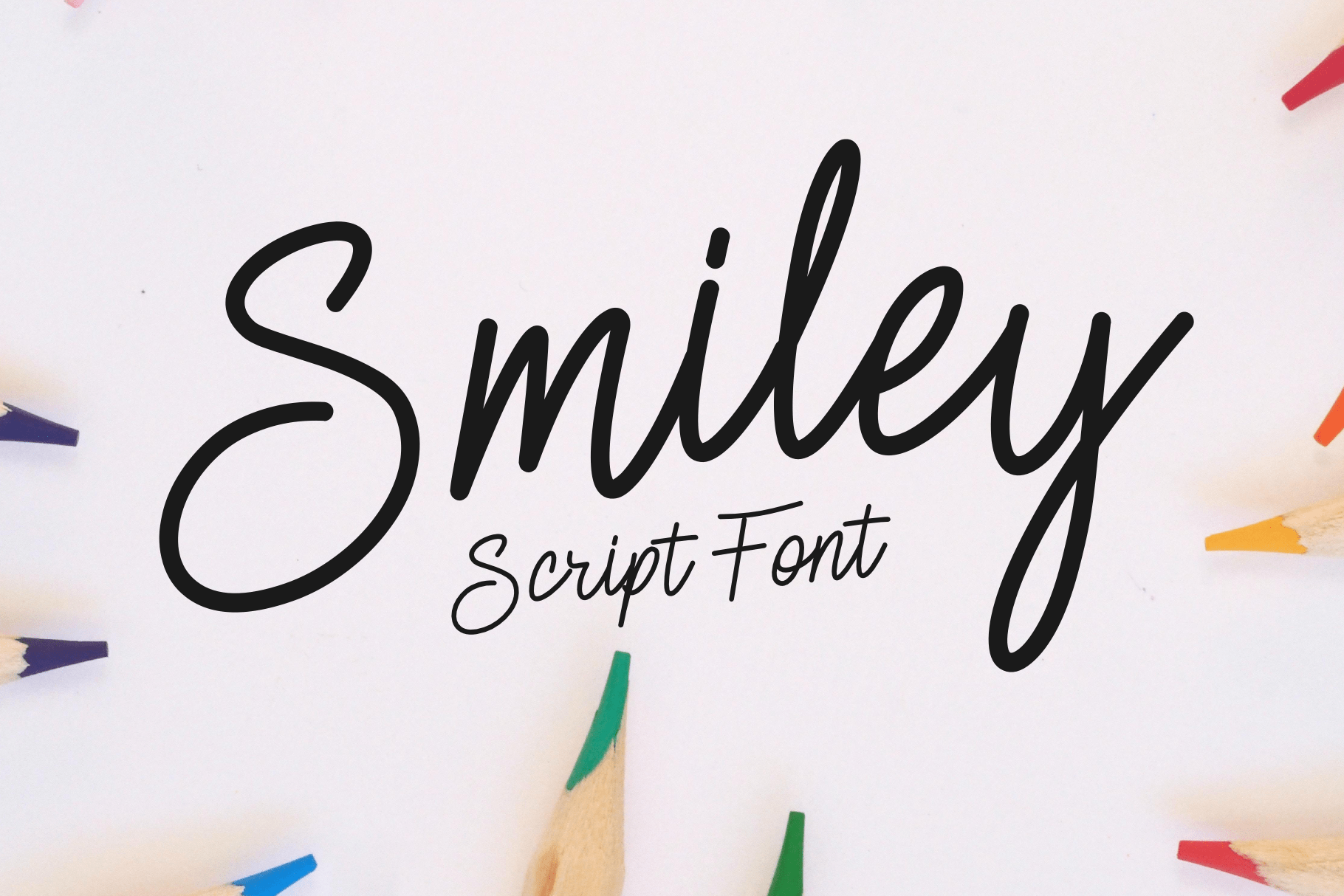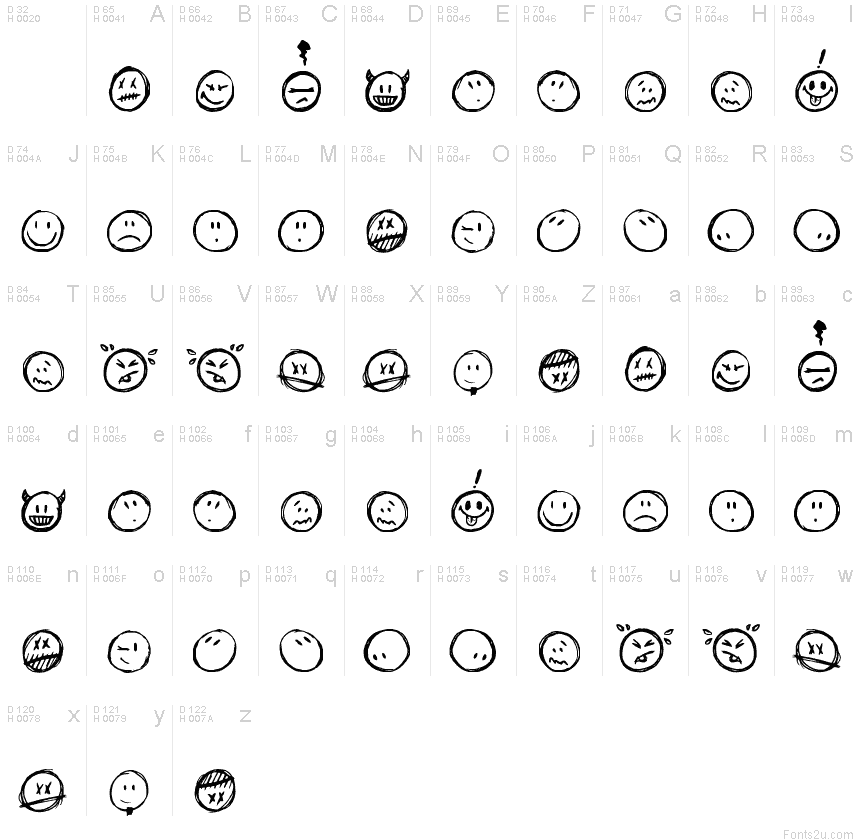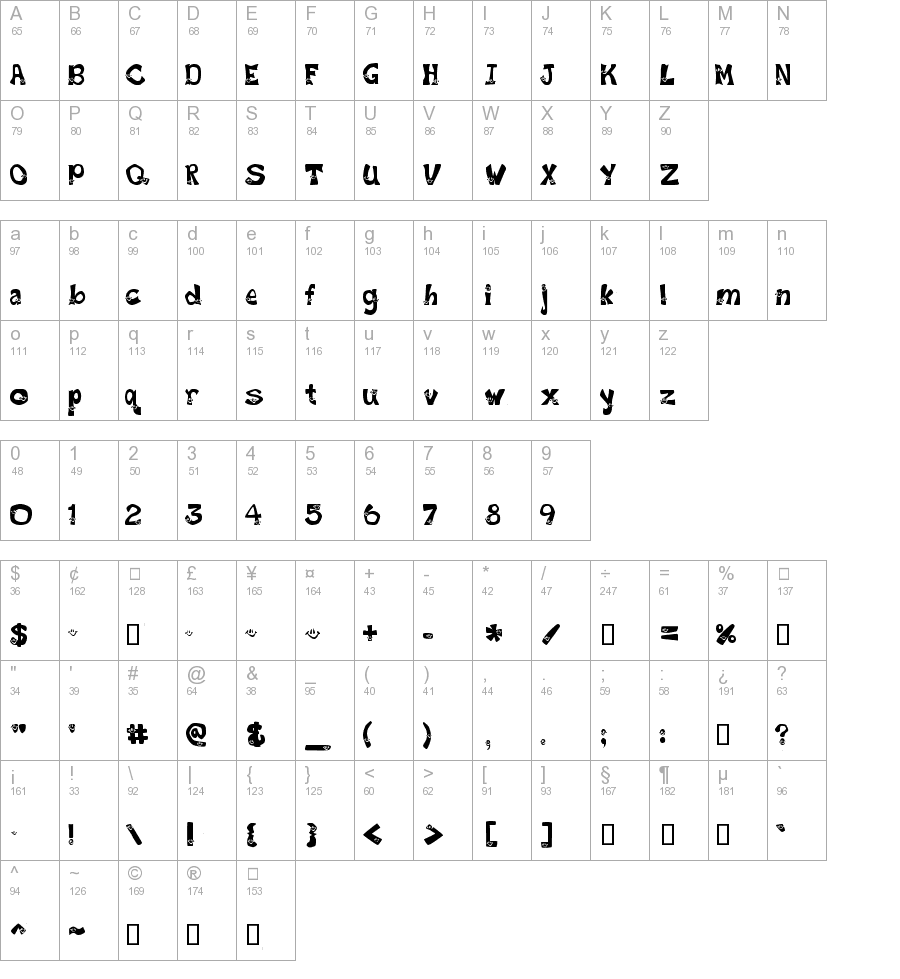
Famous Smiley Fonts References
Famous Smiley Fonts References. They are cute little heads created with symbols and other ascii characters. On smiley cool there are also emoticons faces build from special characters.
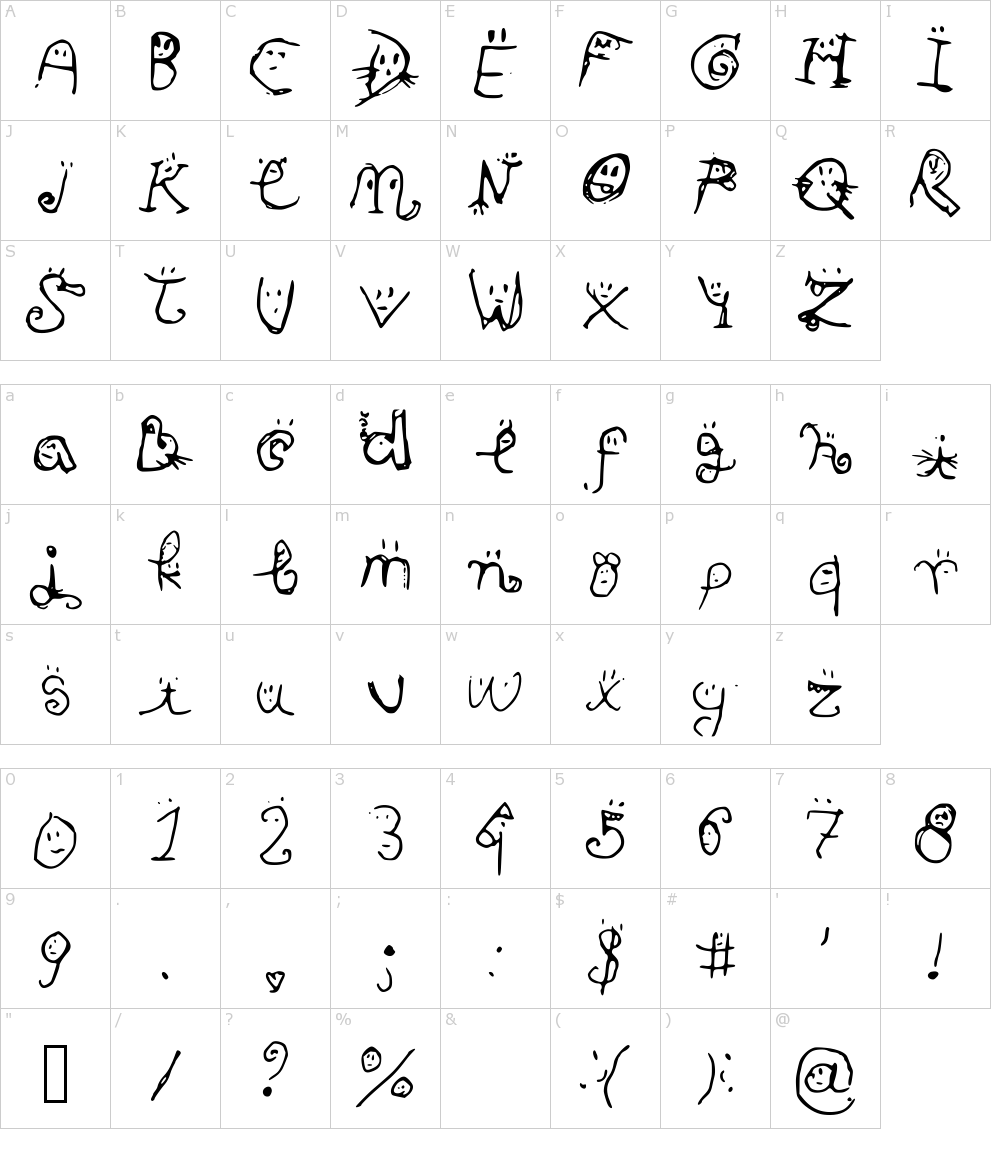
Smiley Is A Gorgeous And Elegant Handwritten Font.
Those are used to represents happiness and love. It has a lively, fun character with some ligatures and alternates to give you even more. This font is good for logo design, social media, movie titles, books titles, a short text even a long text.
Sketchy Smiley Contains 1 Styles And Family Package Options.
Ever think that supermarkets are becoming less personal and more clinical and cold? Smiley born from handwritting style fonts. Smiley face text represent many different smiley faces.
Creamy smiley is the perfect font for all of your creative projects! What will cost you less than a trip to the supermarket and put a smile on your. Smiley symbol is used to represent a smile, happiness.